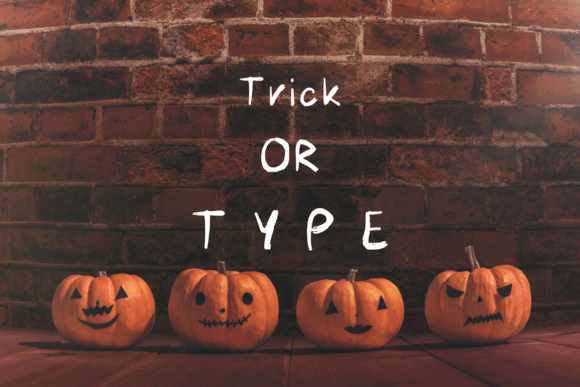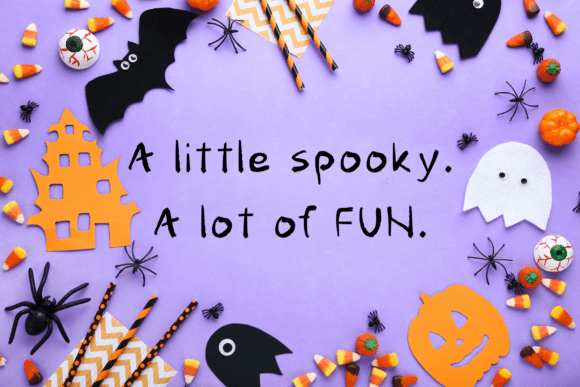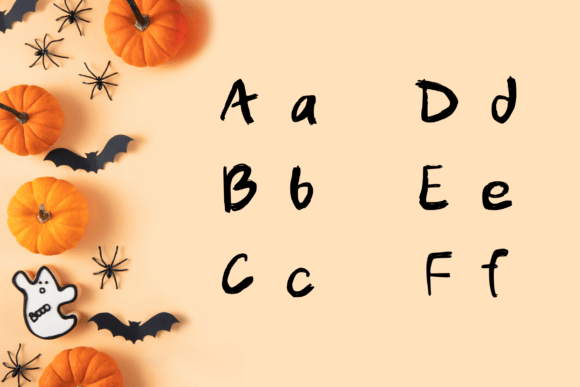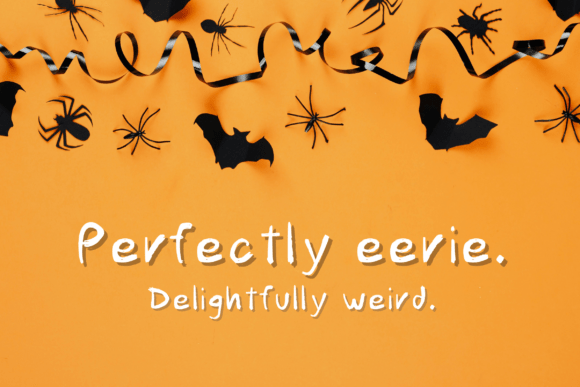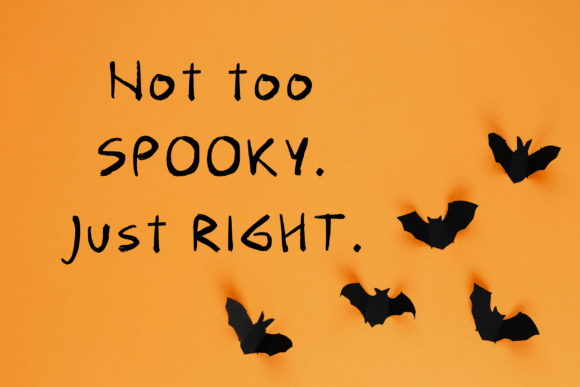
The Perfect Potion for a Spooky Design
As the sun sets on a crisp autumn evening, I find myself reminiscing about the spooky storybooks of my childhood. The creaking doors, the howling wind, and the eerie illustrations that seemed to leap off the page. It’s moments like these that spark the creative flame within me, and I’m always on the lookout for fonts that capture that same essence of wonder and fear. And then, I stumbled upon Freaky Scroll Font – a playful, quirky font that brings a touch of vintage Halloween magic to any design.
Designed to evoke the spirit of old-school Halloween posters and eerie storybook titles, Freaky Scroll Font is the perfect addition to any designer’s toolkit. Its offbeat charm and fun, readable style make it a valuable asset for creating seasonal decor, party invites, and fantasy-themed designs that will leave a lasting impression. Whether you’re a seasoned pro or a budding designer, this font is sure to cast a spell of creativity and inspiration.
Freaky Scroll Font Key Features
- Unique Characteristic 1: The font features a unique, hand-drawn design with a distressed, vintage aesthetic.
- Unique Characteristic 2: Freaky Scroll Font includes a wide range of ligatures and swashes, allowing for creative and expressive typography.
Freaky Scroll Font Review
I’ve had the chance to work with the Freaky Scroll Font, and I must say it’s a wild ride. ✨ Here are some things that work well:
- It’s perfect for adding a touch of whimsy to your designs. The font’s quirky nature makes it stand out in a crowd.
- The font’s flexibility is impressive. It can be used for a variety of purposes, from headings to body text.
- The designer has clearly put a lot of thought into the font’s details, from the subtle animations to the clever use of negative space.
- The font may be a bit too playful for serious or formal designs. It’s best used in situations where you want to add some personality to your project.
- The font’s animations can be distracting if not used carefully. Make sure you’re not overdoing it, or it may take away from the overall message.
- The font may not be as readable on smaller screens or in certain contexts. Be mindful of your design’s accessibility.
Overall, the Freaky Scroll Font is a unique and creative tool that can add some much-needed flair to your designs. Just be sure to use it thoughtfully and with consideration for your audience’s needs.
Freaky Scroll Font: A Practical Application Guide
The Freaky Scroll Font is ideal for:
- Creating eye-catching headings and titles.
- Designing posters, flyers, and brochures.
- Adding a touch of whimsy to digital and print designs.